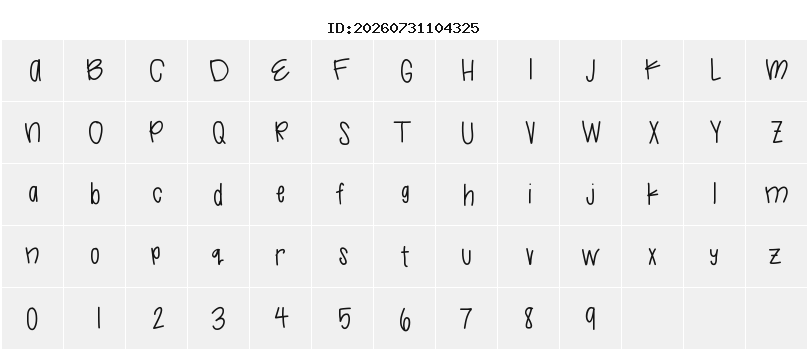
• Font Name: LikeLegit
About LikeLegit.ttf
LikeLegit.ttf is a modern, elegant sans-serif font designed for ultimate readability and visual harmony. Perfect for branding, headlines, web design, and print materials.